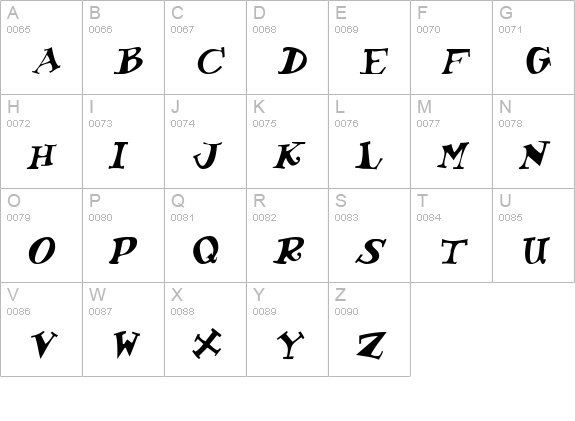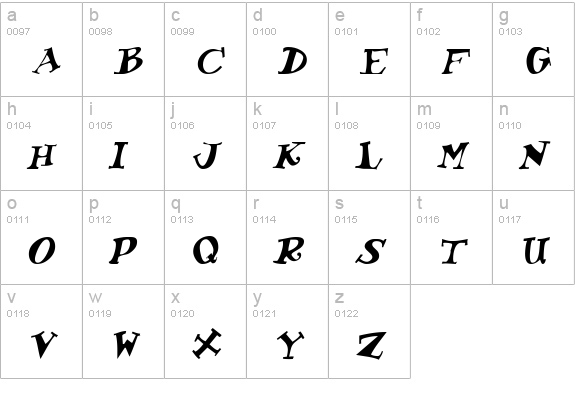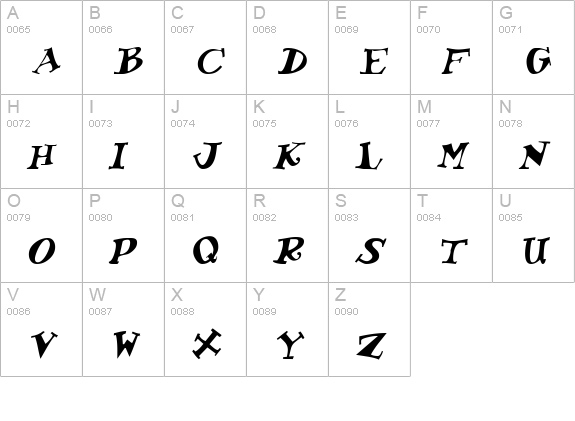
KoolKapsDisplay Italic is a distinctive, italic variant in the KoolKapsDisplay typeface family \xE2\x80\x94 well suited to design and typography projects.
KoolKapsDisplay Italic font is a visually striking typeface that embodies elegance and modern sophistication. Its sleek and slanted design exudes a sense of style and sophistication, making it perfect for a wide range of creative projects. The italicized characters add a touch of flair and uniqueness to any text, making it stand out from the crowd. What's even better is that KoolKapsDisplay Italic font is available for free download at FontsMarket.com. This means you can easily access this stunning font without any cost, making it a valuable addition to your design toolkit. Whether you're working on branding, advertising, or any other creative project, KoolKapsDisplay Italic font is sure to elevate your work to the next level. Download it today and unleash your creativity with this beautiful and versatile typeface.